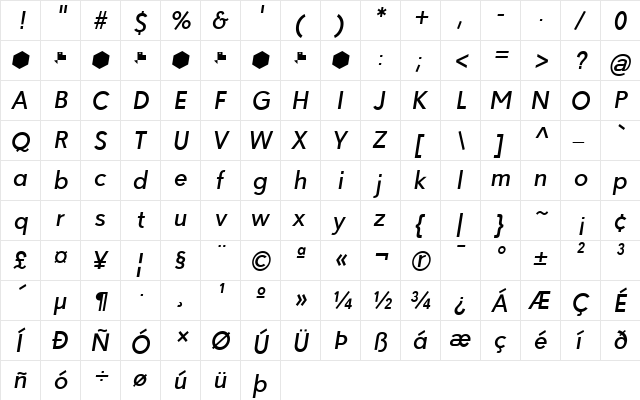
Paloseco Medium Italic
| Foundry | deFharo |
| Designer | Fernando Haro |
Design Context for Paloseco Typeface
Paloseco offers clean, dependable letterforms without strong stylistic allegiance, making it a practical choice for designers who need flexibility. Its italic angle brings a sense of urgency and motion to the letterforms.